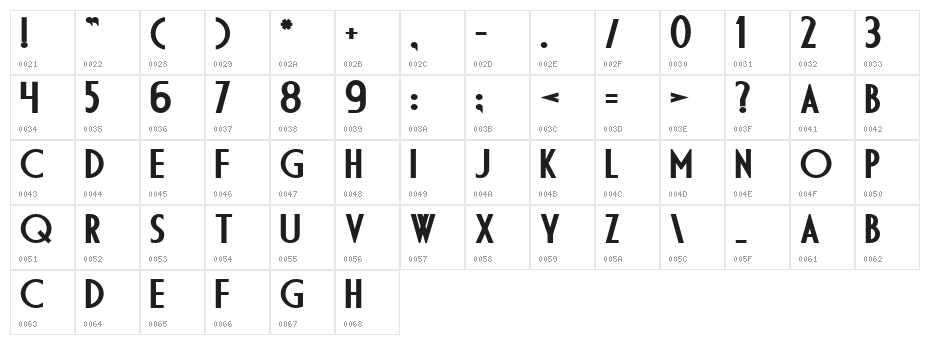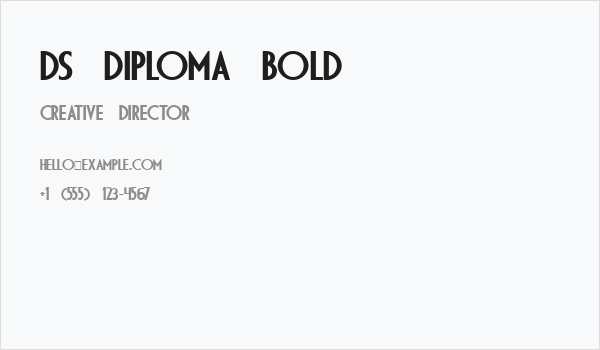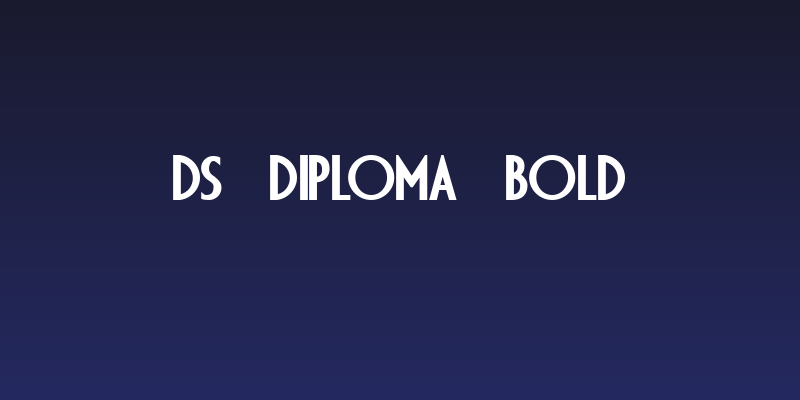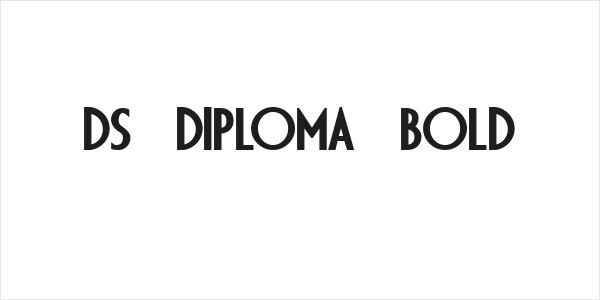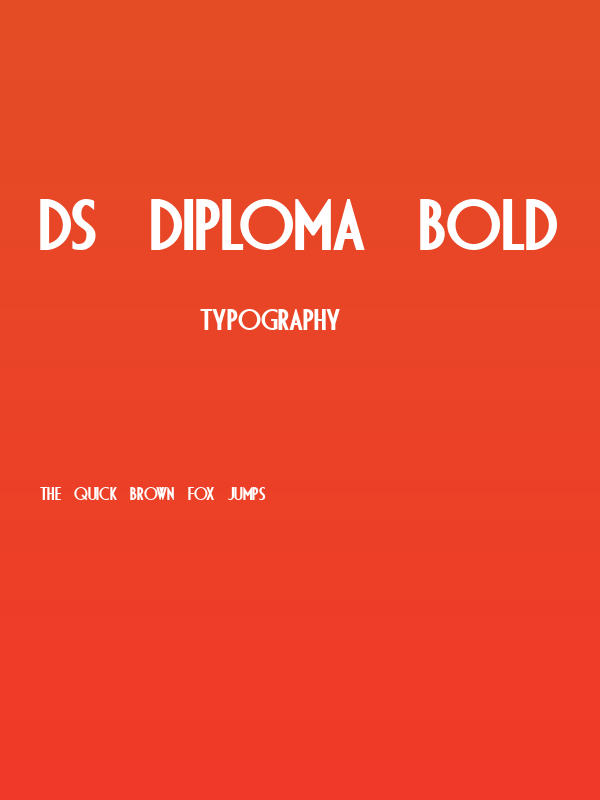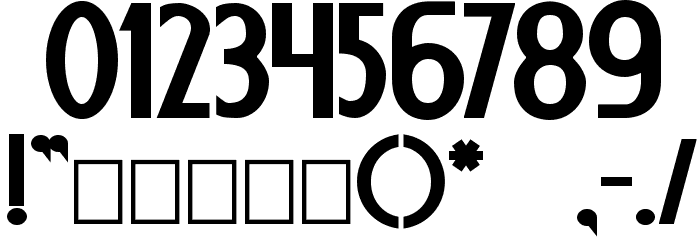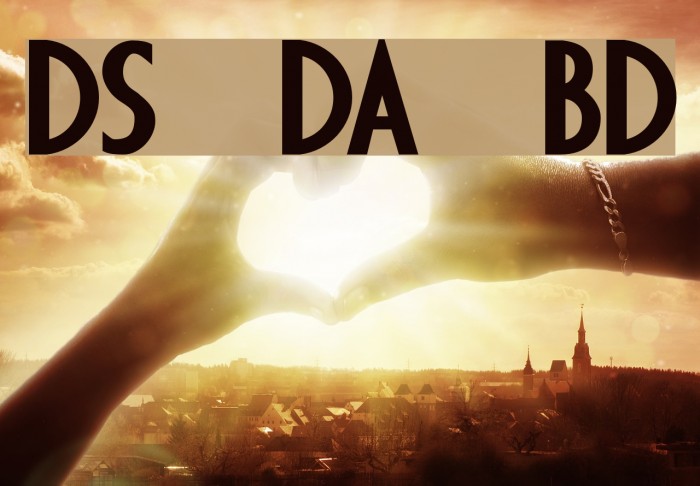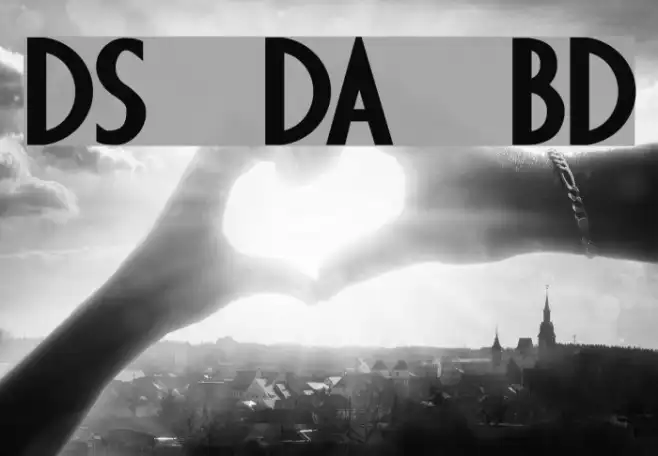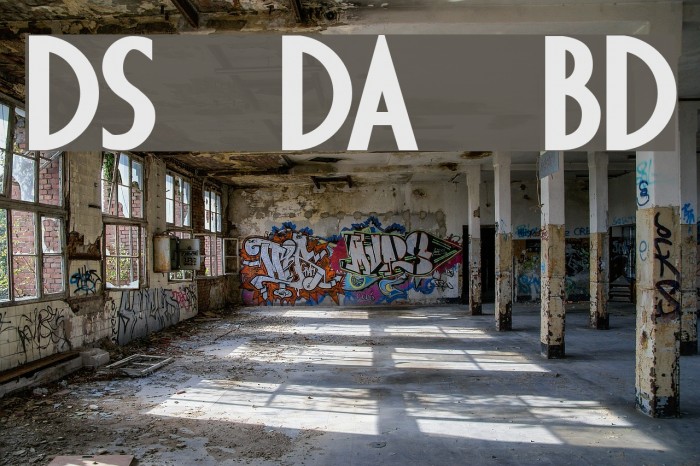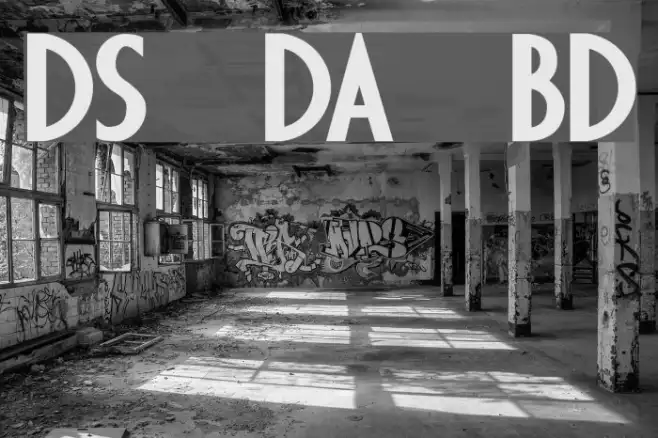
DS Diploma Bold Font
DS Diploma Bold Description
This font features bold, geometric letterforms with a strong presence. The characters are designed with sharp angles and clean lines, giving it a modern and assertive look. The uppercase letters are particularly striking, with a consistent height and width that create a harmonious appearance. The numerals are equally bold, maintaining the same geometric style. Special characters are designed to match the overall aesthetic, ensuring a cohesive look across all text elements. This font is ideal for making a statement, with its high contrast and impactful style.
| Proposed Projects | Ideal for headlines, posters, branding, and any design requiring a strong visual impact. |